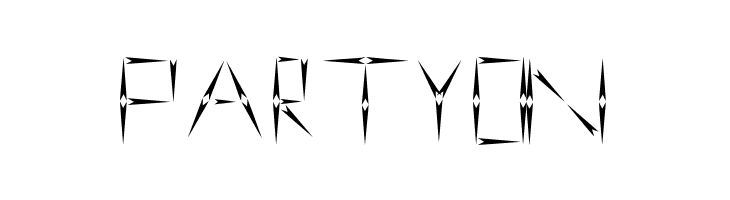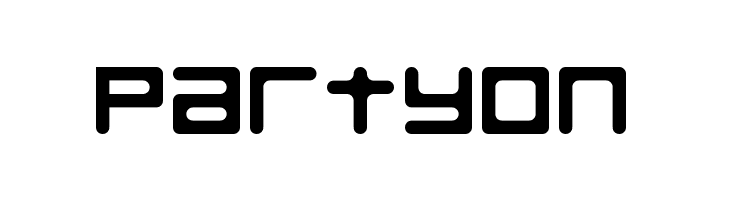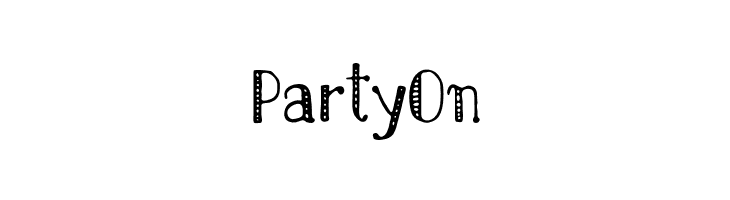
A playful, hand-drawn font with decorative dots and a whimsical style.
A modern, geometric font with rounded edges and uniform stroke width.
A decorative, angular font with sharp, geometric shapes and high contrast.